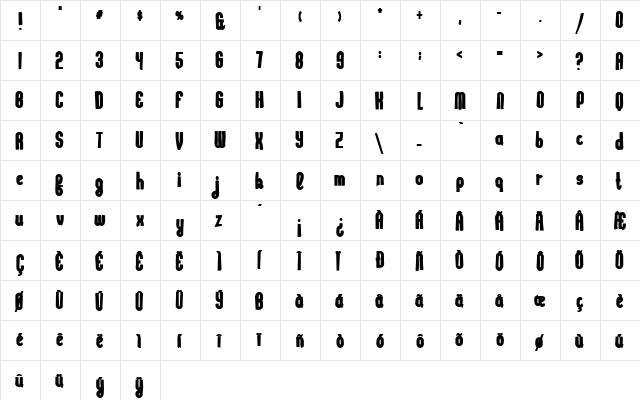
Kleptocracy Ink Regular
Design Context for Kleptocracy Ink Typeface
Kleptocracy Ink is a composed and adaptable typeface that performs quietly and consistently across a wide range of design contexts.